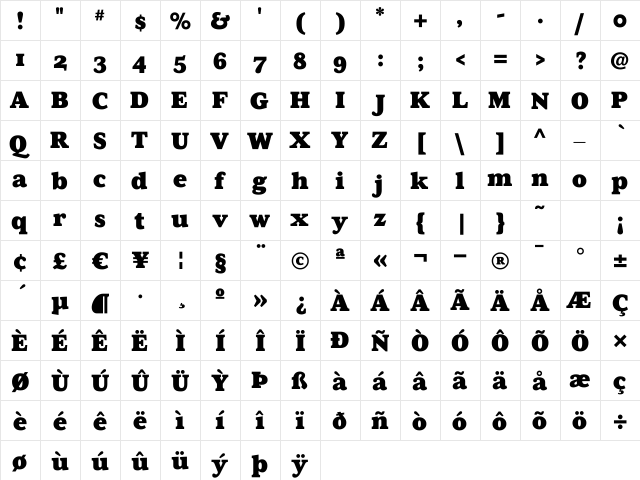
Aurea UltraRoman Regular
Design Context for Aurea UltraRoman Typeface
Aurea UltraRoman takes a measured approach to typography — its balanced proportions and neutral character make it a reliable workhorse for both digital and print work.